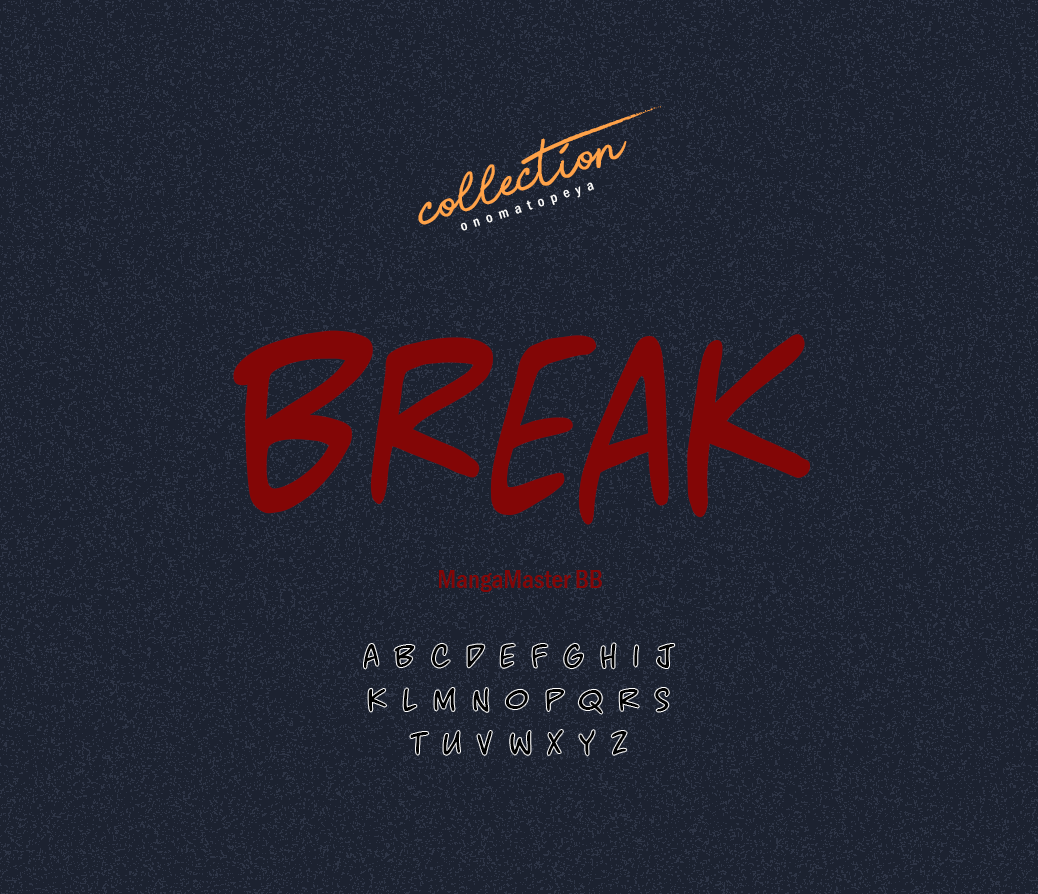
Manga Master Font
Manga Master Font - Ideal for comic books, children's. The fonts, including any derivative works, can be bundled, embedded, redistributed. Download manga master pro bb regular font.